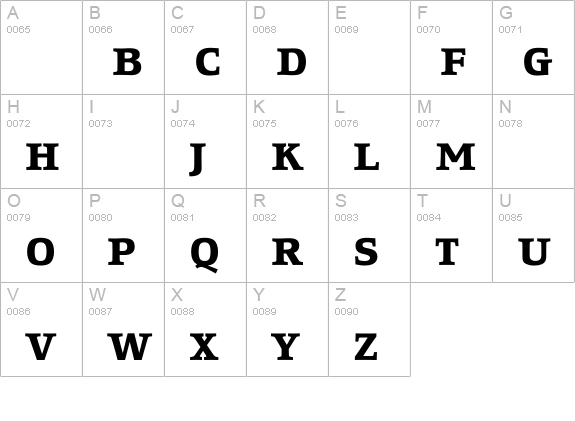
EquestrienneBold font is a striking and elegant typeface that embodies the grace and strength of a skilled equestrienne. With its bold and fluid strokes, this font exudes confidence and sophistication, making it perfect for a wide range of design projects. Whether you're creating invitations, posters, or branding materials, EquestrienneBold font will add a touch of timeless beauty to your work. Best of all, EquestrienneBold font is freely available to download at FontsMarket.com. So go ahead and enhance your designs with this exquisite font that captures the spirit of freedom and elegance. Let EquestrienneBold font take your projects to new heights with its unique charm and versatility.